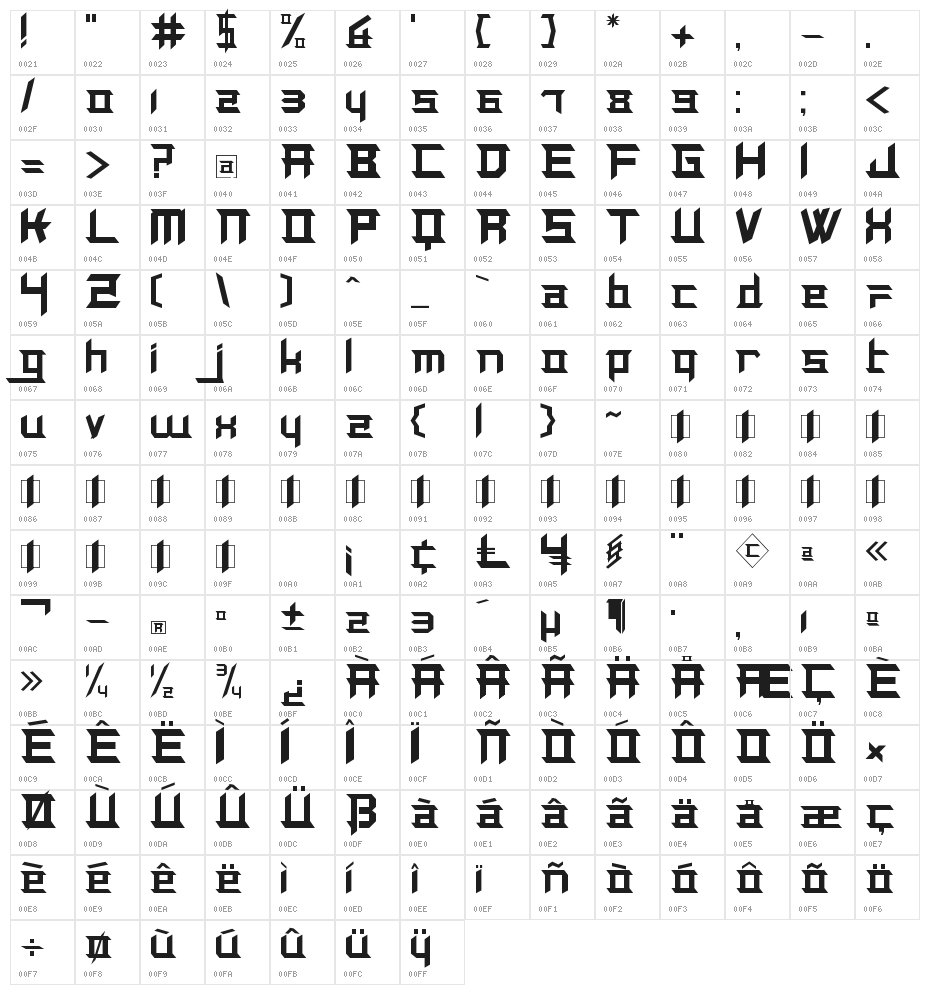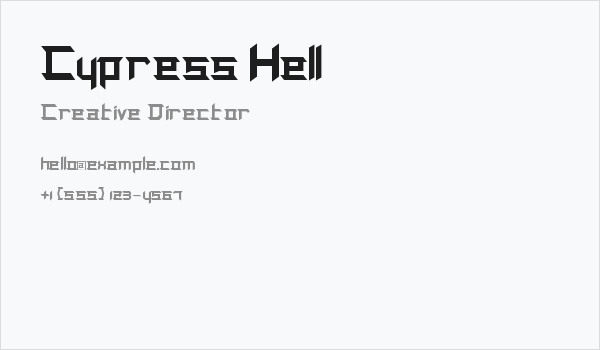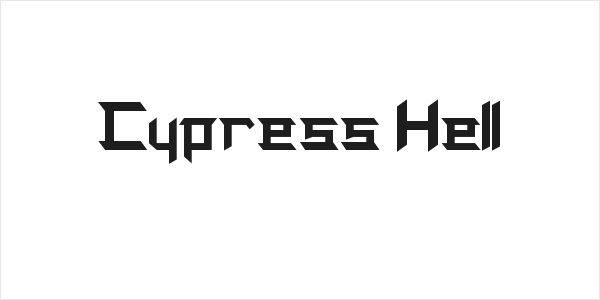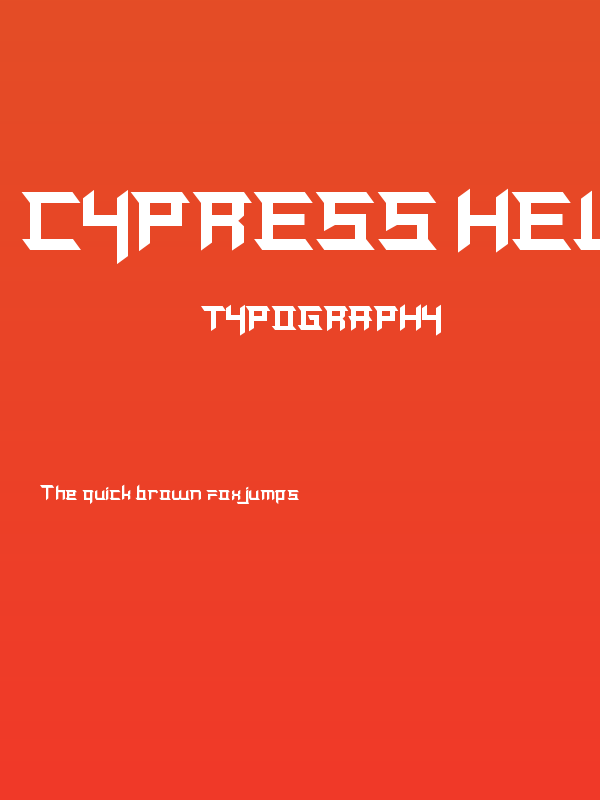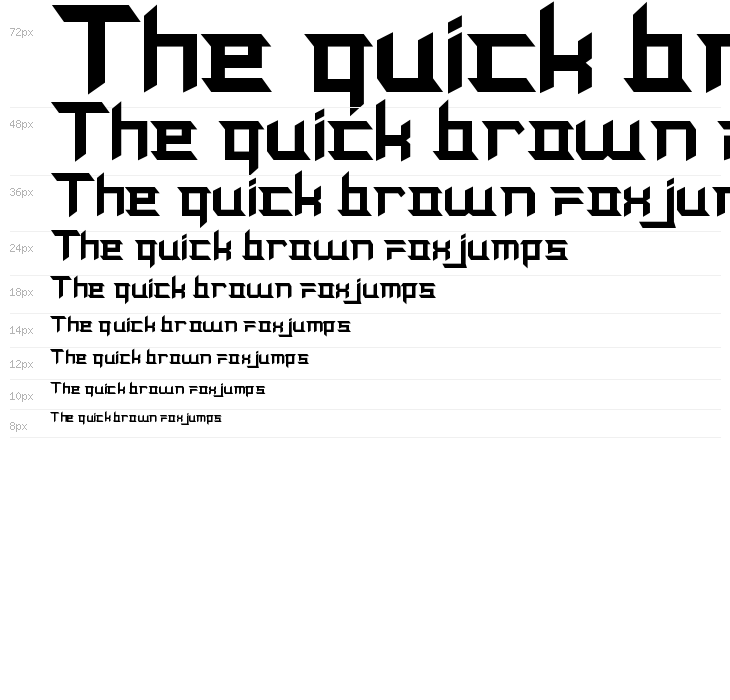
Cypress Hell Font
Cypress Hell Description
This font features a bold, geometric design with sharp angles and a futuristic aesthetic. The characters are constructed with a combination of straight lines and angular cuts, giving it a distinct, edgy appearance. The uppercase and lowercase letters maintain a consistent style, with the uppercase being slightly more pronounced. Numbers and special characters follow the same angular theme, ensuring uniformity across the font. The overall look is modern and dynamic, making it suitable for projects that require a strong visual impact.
| Proposed Projects | Ideal for sci-fi themed designs, video game graphics, posters, and branding that requires a modern, edgy look. |